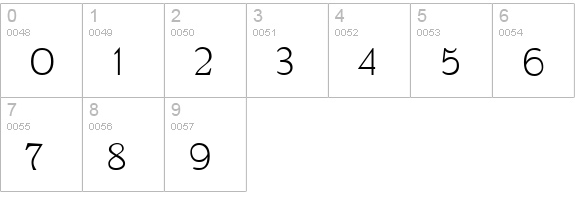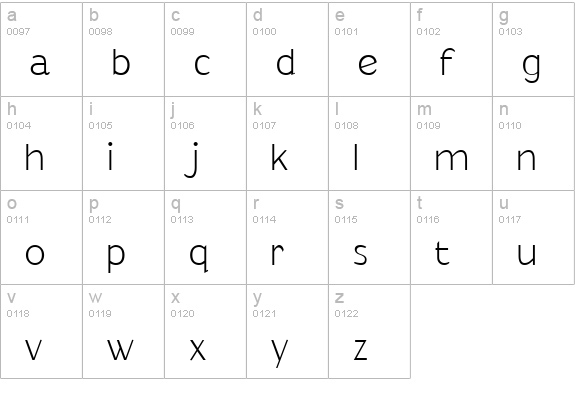
Introducing Qualettee, a stylish and versatile font that is sure to elevate any design project. With its elegant curves and clean lines, Qualettee offers a sophisticated and modern aesthetic that is perfect for both print and digital applications. What sets Qualettee apart is not only its impeccable design, but also its accessibility. This font is available for free, allowing designers of all levels to add a touch of class to their work without breaking the bank. Simply head over to FontsMarket.com to freely download Qualettee and unlock its full potential. Whether you're working on a logo, a branding project, a website, or even a personal invitation, Qualettee has you covered. Its wide range of weights and styles provide endless possibilities, ensuring that your designs will stand out from the crowd. With Qualettee, you can effortlessly create eye-catching headlines, elegant typography, and stunning layouts that will captivate your audience. This font's attention to detail and refined aesthetics are sure to make a lasting impression. Don't miss out on the opportunity to enhance your designs with Qualettee. Download this exceptional font for free at FontsMarket.com and experience the beauty of its timeless design firsthand. Let Qualettee elevate your creative endeavors and bring your visions to life.